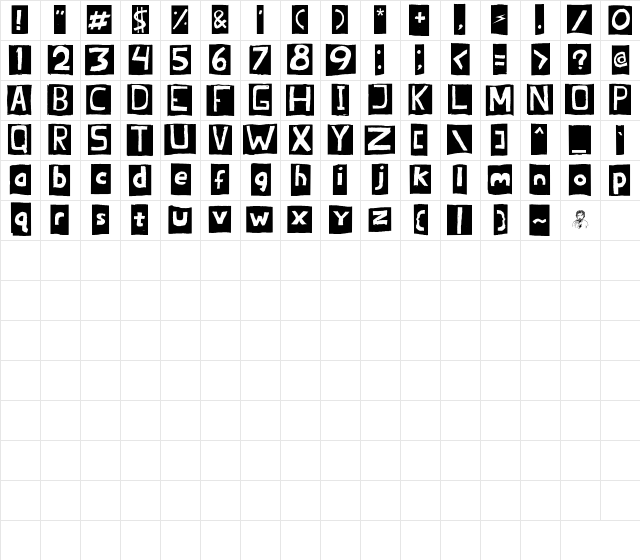
-BRANDON- Regular
Foundry: Eric Wiryanata
Designer: Eric Wiryanata
Design Context for -BRANDON-
-BRANDON- is a composed and adaptable typeface that performs quietly and consistently across a wide range of design contexts.